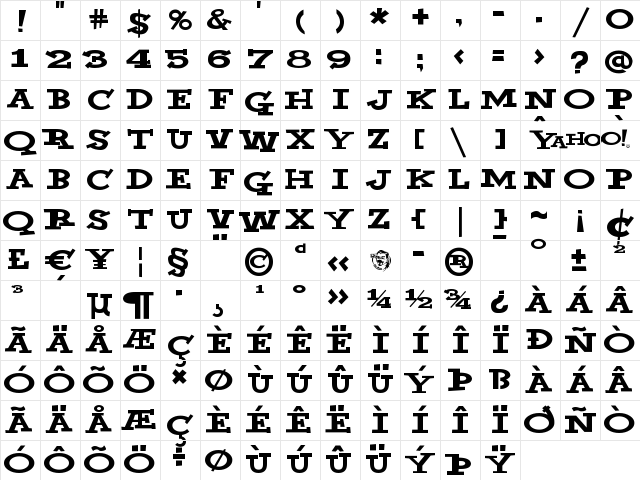
Yahoo Regular Free Font
Yahoo Regular
Design Context for Yahoo
Yahoo is a composed and adaptable typeface that performs quietly and consistently across a wide range of design contexts.